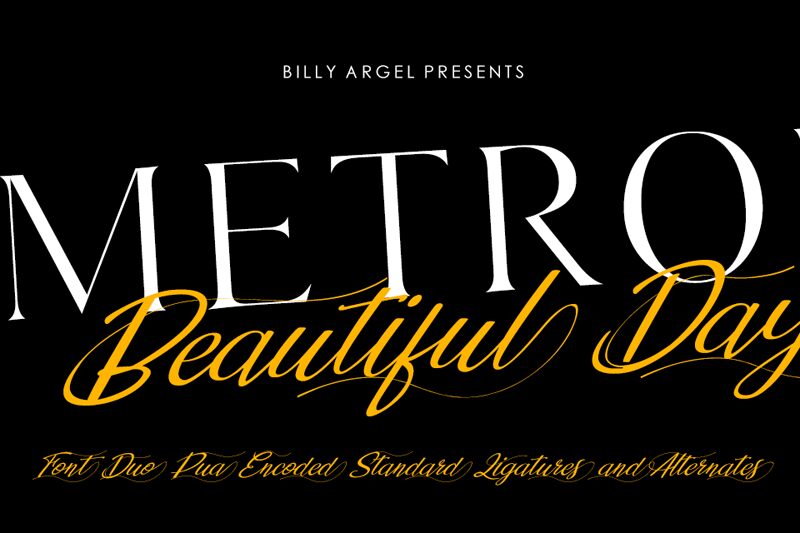
Metropolis font by Billy Argel Fonts ® is a free font with a modern classic serif style. This elegant typeface combines sophistication with a contemporary twist, capturing the essence of contrasting typefaces. Its formal appearance is balanced with a subtle artistic flair, making it versatile and suitable for upscale design projects.
Ideal for branding, logos, invitations, posters, packaging, editorial design, and more, Metropolis perfectly fits into any design project requiring a refined touch. This font adds a decorative yet professional feel to websites, brochures, books, menus, signage, and product labels.
Font Duo PUA Encoded.